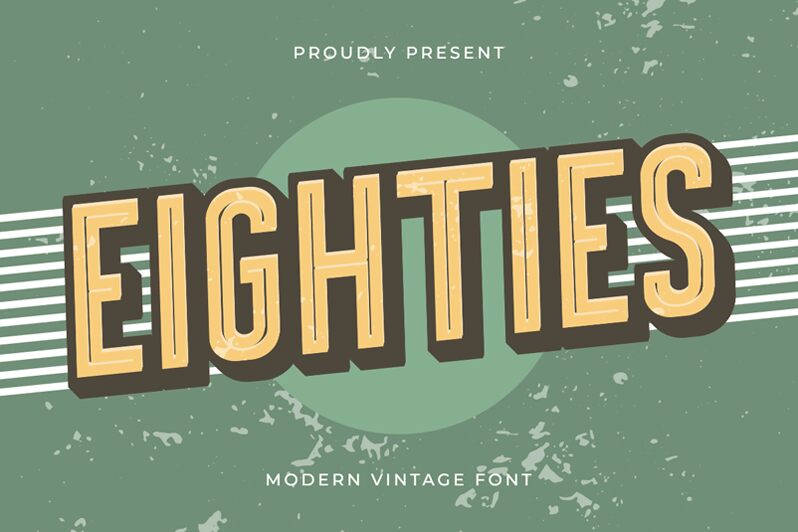
Eighties font is a condensed retro display free typeface from the talented studio of Kong Font. This font is highly reminiscent of 1980s typography but simpler and with a more structured geometric appearance. Eighties has a sleek and polished look, modernist influences, and striking art-deco references mostly visible as sharp angles.
Use this beautiful outline sans serif text for nostalgic album covers, movie posters, video ads & trailers, artist branding projects, website titles or headers, social media post backgrounds in different languages.